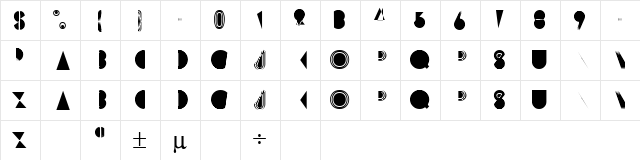
PHARAOH Regular
Design Context for PHARAOH Typeface
PHARAOH is a composed and adaptable typeface that performs quietly and consistently across a wide range of design contexts.